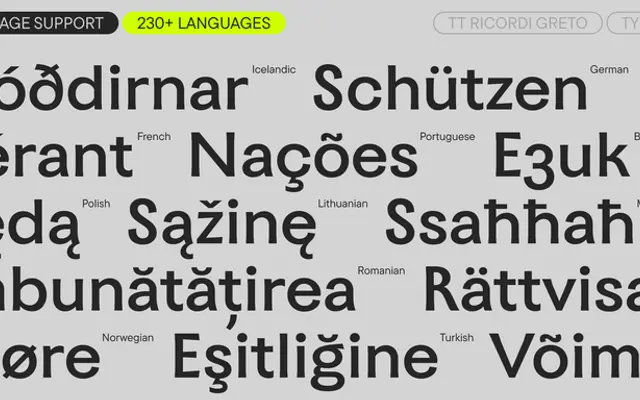
TT Ricordi Greto
TypeType · Ksenia Karataeva · 2021
A display sans drawn from a 1423 Florentine floor inscription in the Basilica di Santa Croce, with flared terminals, closed apertures and deliberately preserved historical irregularities.
Designed by Ksenia Karataeva as the only sans serif in TypeType's TT Ricordi collection, this typeface traces its forms to an Early Renaissance stone inscription and carries that origin through flaring stroke ends, dynamic proportions and subtle serif hints. The 2025 update doubled the glyph count to 1,365, added fully developed lowercase letters, expanded Cyrillic and Latin coverage to over 230 languages, and brought the OpenType feature count to 32. Best suited to editorial headlines, cultural branding, packaging and signage where historical texture needs to coexist with contemporary weight contrast.
Derived from a 1423 Florentine floor inscription, TT Ricordi Greto is a low-contrast sans serif with Renaissance letterform character, closed apertures and flared terminals that position it firmly as a display face rather than a general-purpose sans.